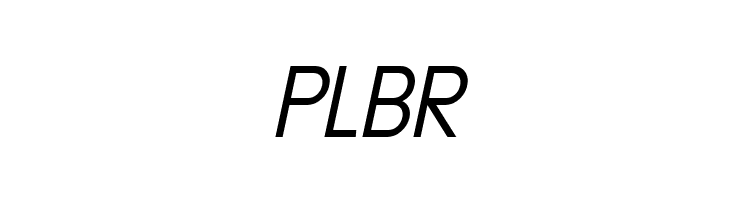
Space Ranger Condensed Italic Font
- Font: Space Ranger Condensed Italic
- Weight: Condensed Italic
A sleek, oblique font with a modern and dynamic style.